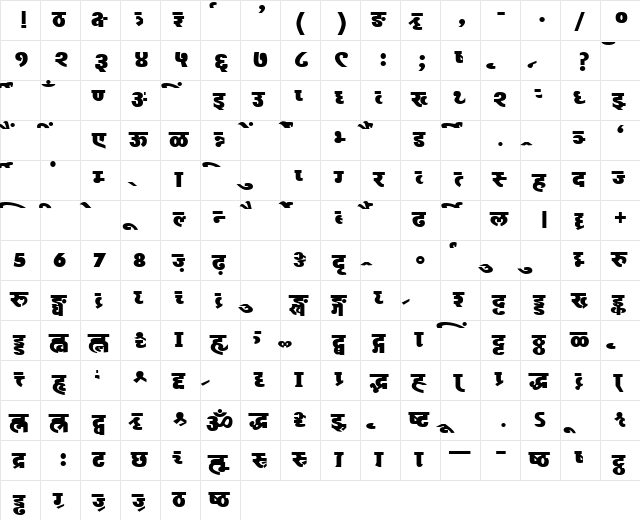
AkrutiDevPratik Bold
Design Context for AkrutiDevPratik Typeface
AkrutiDevPratik is a composed and adaptable typeface that performs quietly and consistently across a wide range of design contexts. Its bold stroke weight gives it real presence on the page.